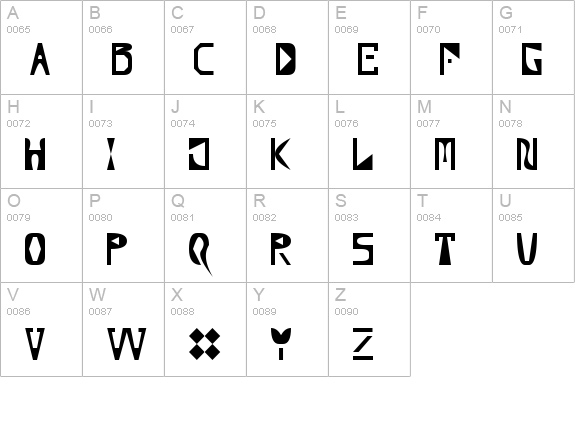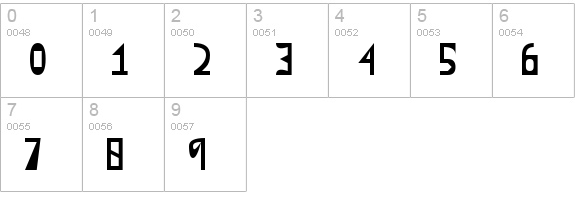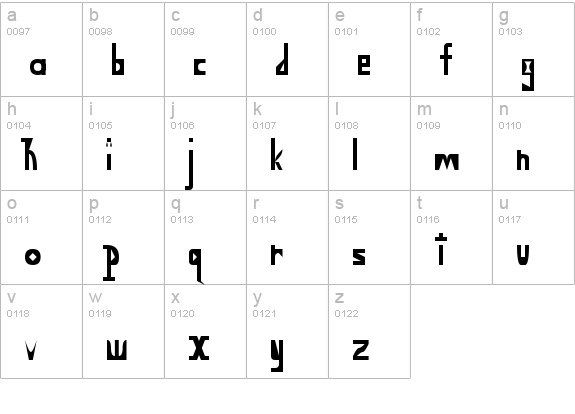
You Don't Want to Know Font Details
Introducing the captivating and mysterious You Don't Want to Know font, a typeface that exudes intrigue and sophistication. This unique font features intricate details and subtle curves that add a touch of elegance to any design project. With its bold yet sleek appearance, You Don't Want to Know font is perfect for creating eye-catching headlines, logos, and branding materials. This one-of-a-kind font is freely available to download at FontsMarket.com, making it easily accessible for designers and creatives looking to add a touch of flair to their work. Whether you're designing a poster, website, or packaging, You Don't Want to Know font is sure to make a lasting impression with its distinctive style and versatility. Embrace the allure of this remarkable font and elevate your designs to new heights.